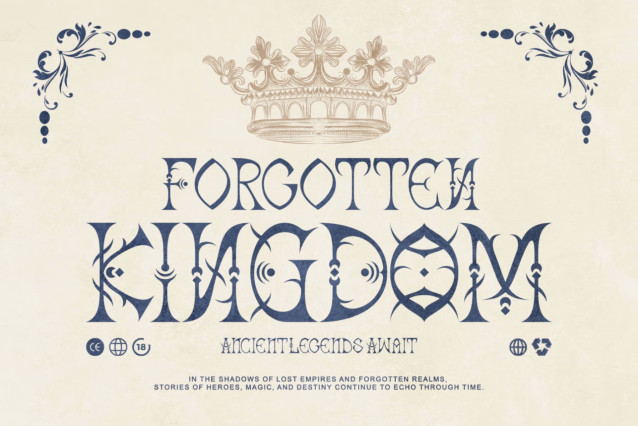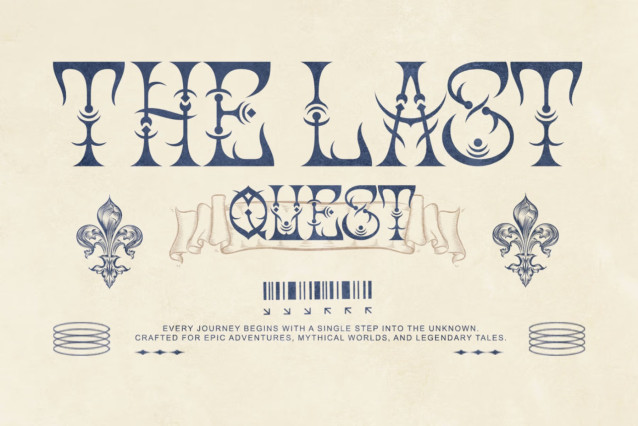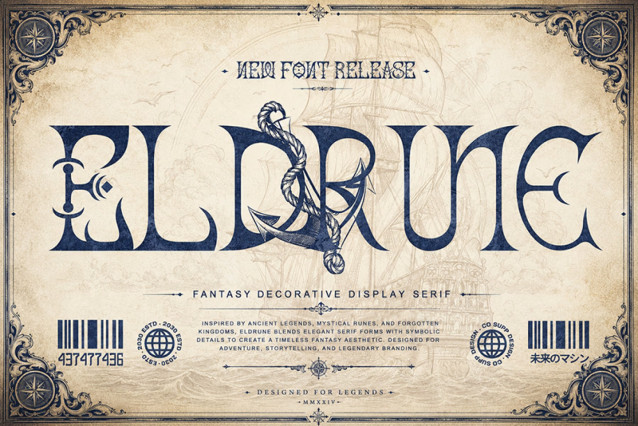
Eldrune is a fantasy decorative serif font inspired by ancient legends, mythical kingdoms, medieval manuscripts, and nautical adventures. Featuring regular characters, alternates, swashes, ligatures, numerals, punctuation, and multilingual support, Eldrune is perfect for fantasy logos, book covers, RPG games, movie titles, posters, packaging, and legendary branding.